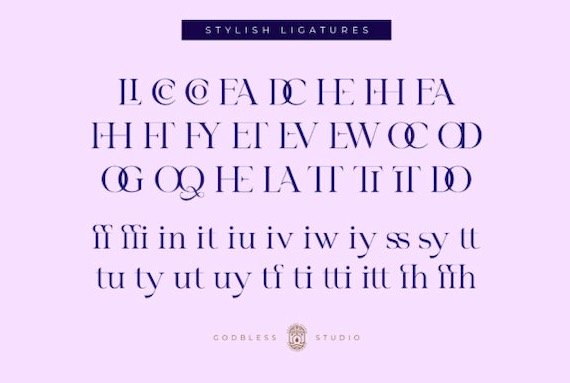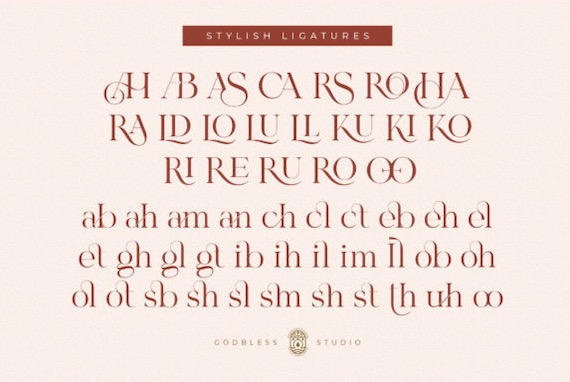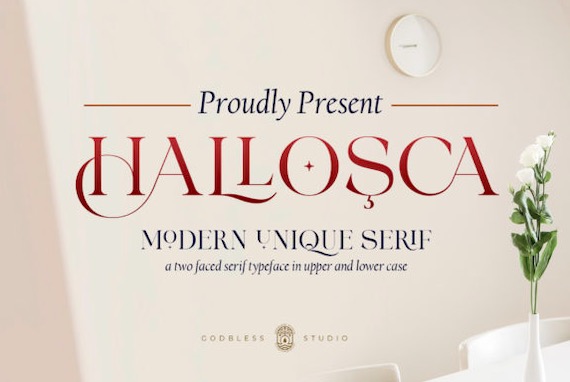
Hallosca Font is a unique, modern, and classy serif typeface that was created and shared by Godbless Studio. This basic font is very perfect for adding a unique twist to any of your designs like quotes, monograms, logos, etc. You will get classy, elegant, and unique designs using this font. Moreover, it’s PUA encoded, which means you can access all of the glyphs and swashes with ease!
Hallosca Serif Font